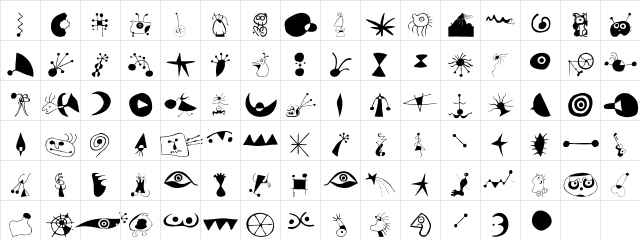
MiroExtras Roman
Design Context for MiroExtras Typeface
MiroExtras is a composed and adaptable typeface that performs quietly and consistently across a wide range of design contexts.